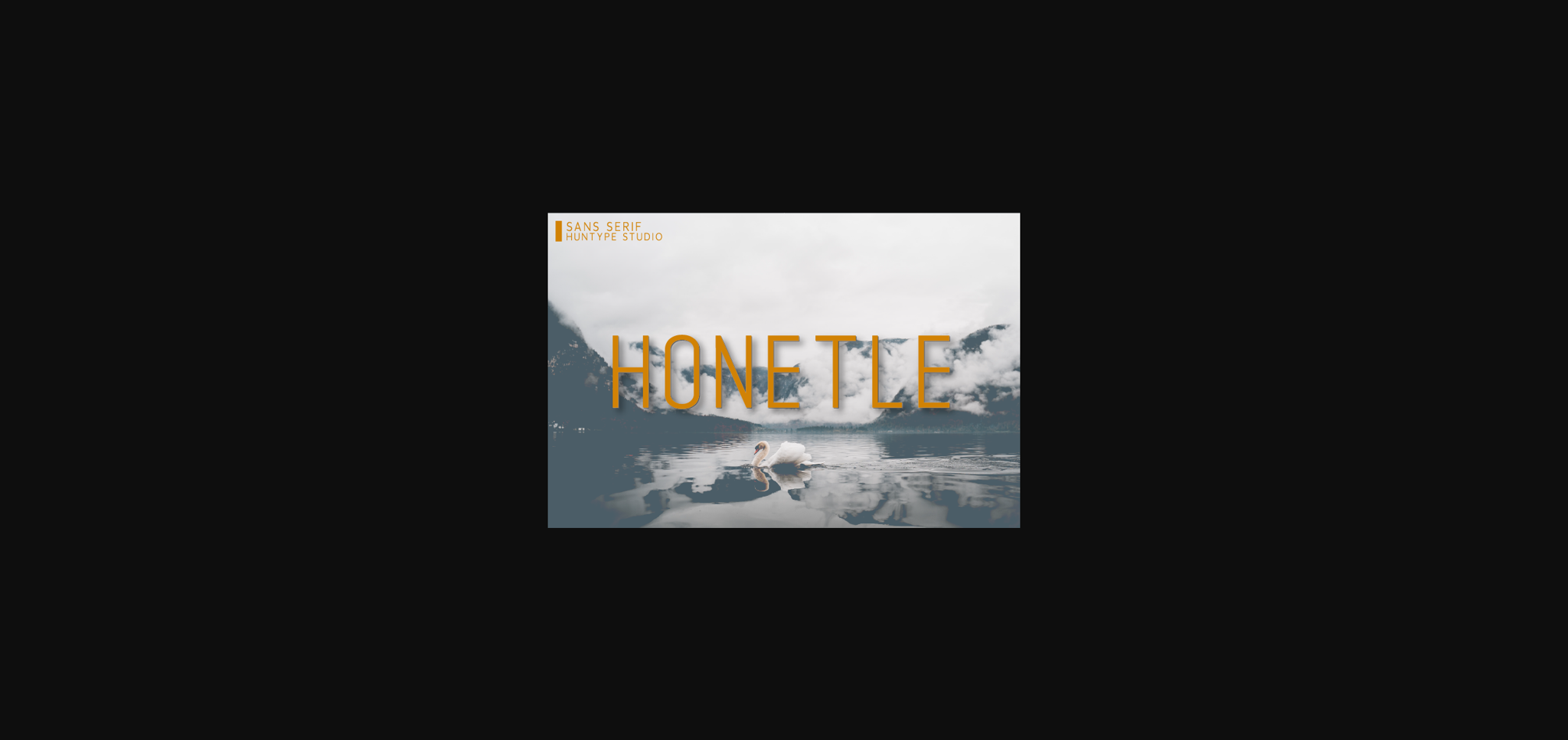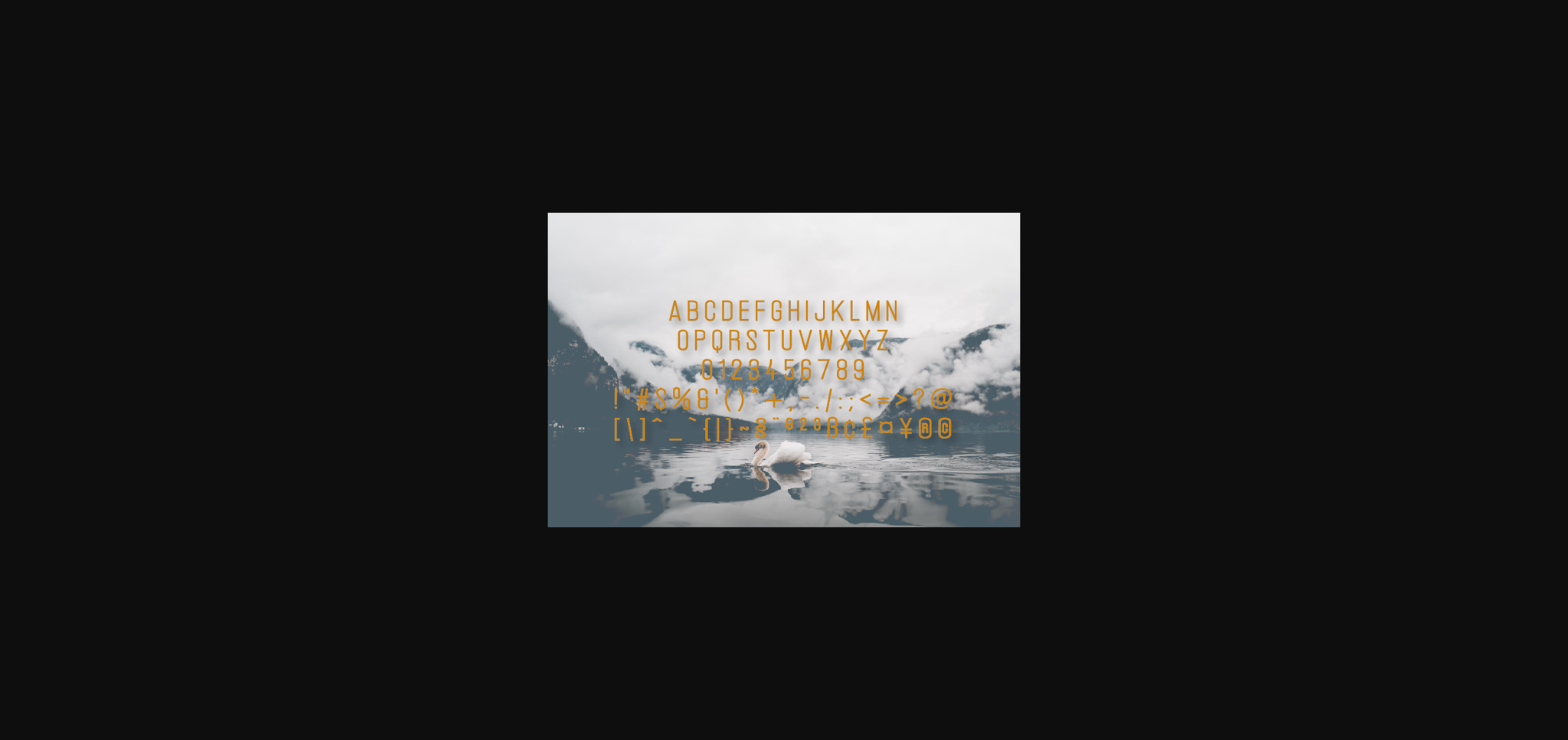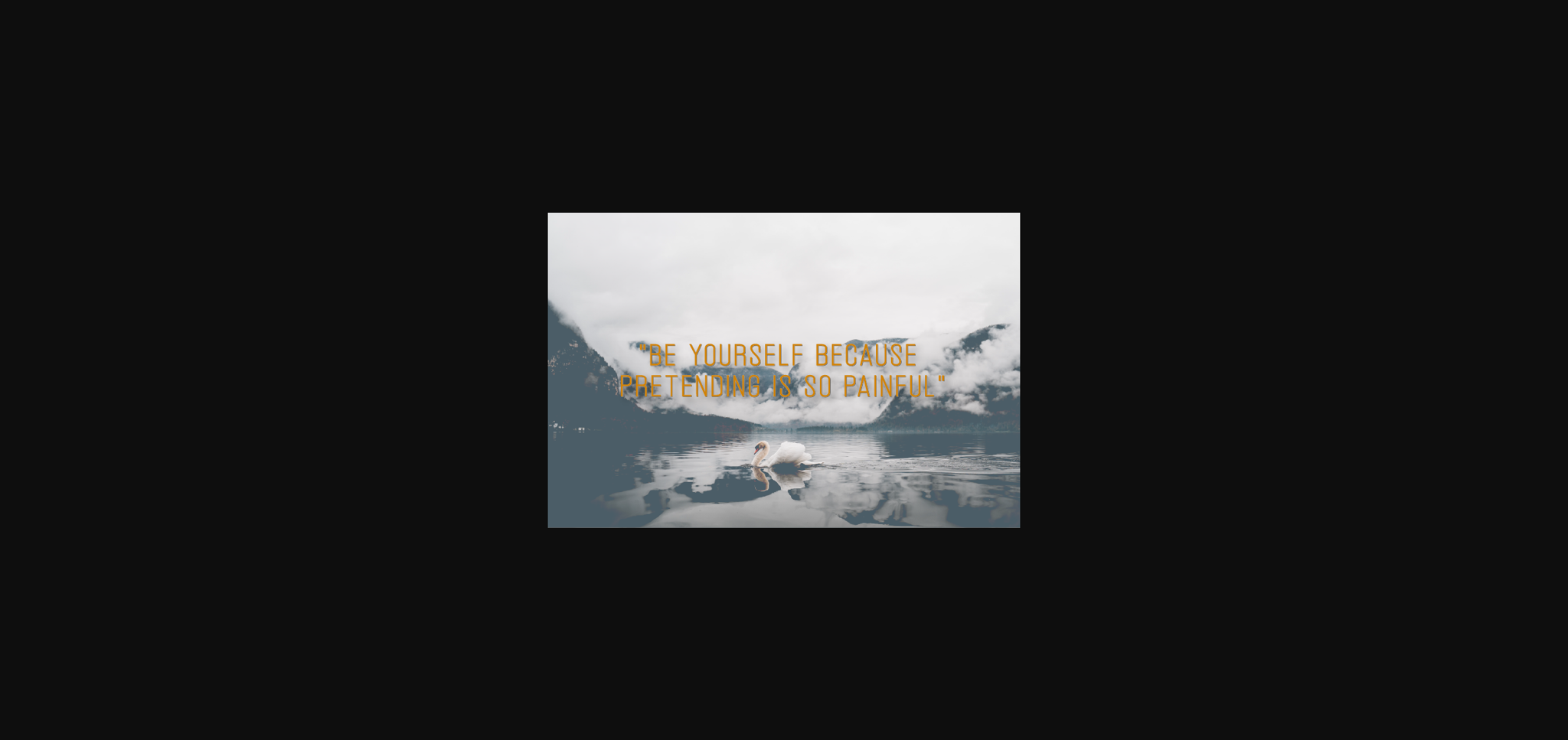
Honetle Font
About Honetle Font
Honetle is a minimalist and clean sans serif font. It has identical letters which makes this font incredibly versatile, fitting a wide spectrum of designs, both formal and informal.